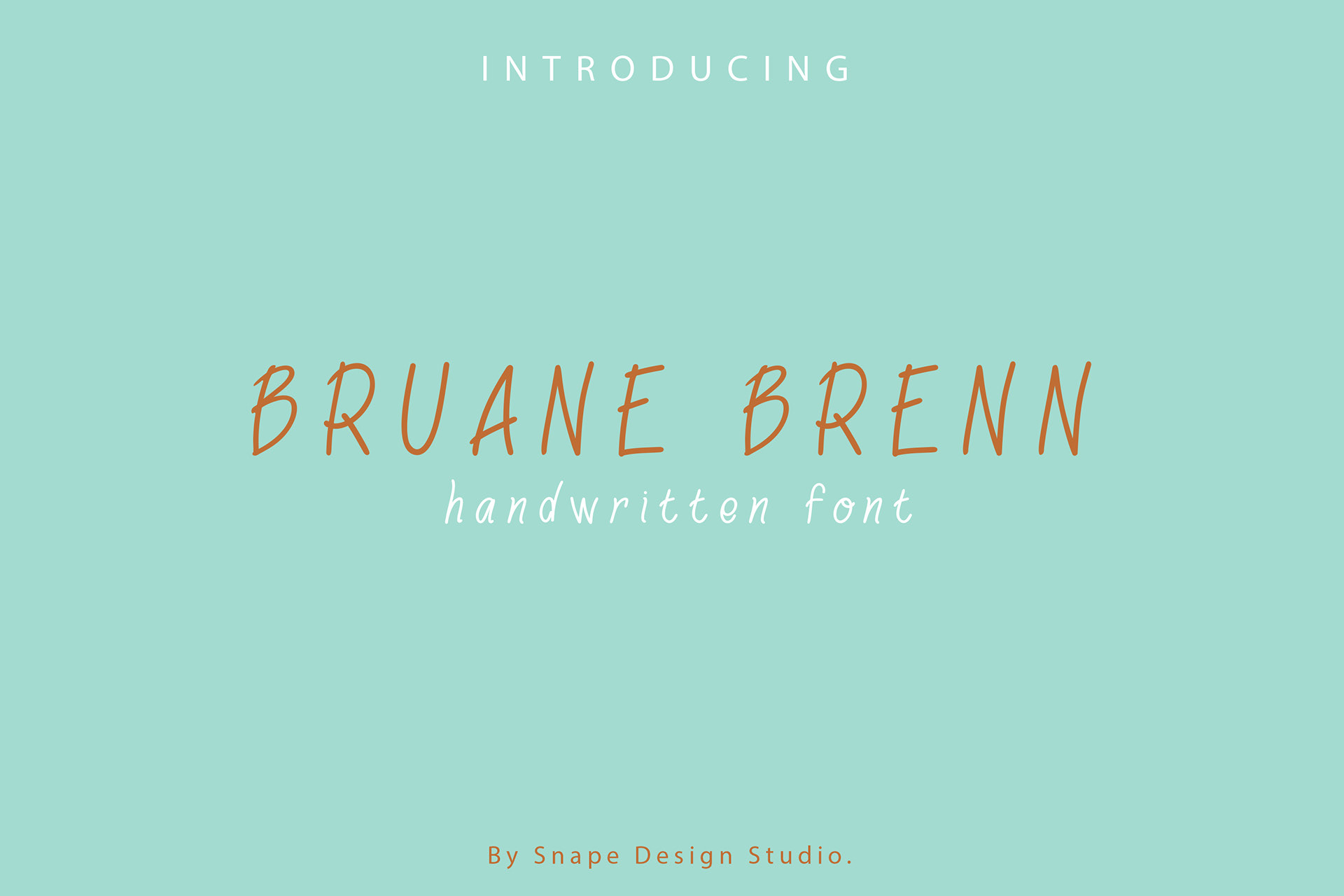
Bruane Brenn is a sweet and simple handwritten font, offering support for all characters of the English language.
This typeface is fit for cute and classic designs and nearly any creative idea that you have in mind.
Complete standard set font with Uppercase, Lowercase, Numeral, and Punctuation.